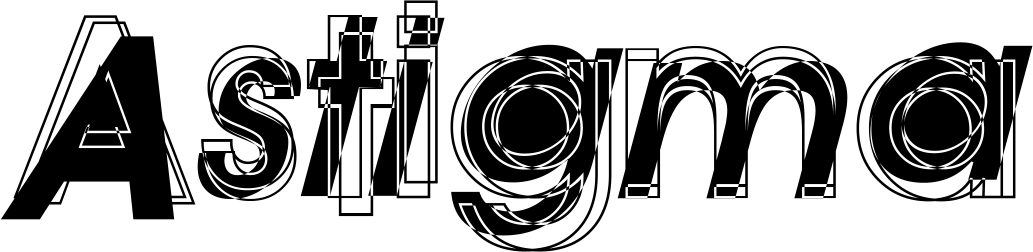
Astigma Font
Creating new ideas shouldn’t be hard if you know what to do. For example, you can try a distorted font like Astigma which comes with deformed letters and you can use it in a variety of projects like posters, apps, flyers…
Creating new ideas shouldn’t be hard if you know what to do. For example, you can try a distorted font like Astigma which comes with deformed letters and you can use it in a variety of projects like posters, apps, flyers, branding, etc.
This font contains a great collection of characters and it has both the uppercase and lowercase of the alphabets, the numbers, and punctuation marks.